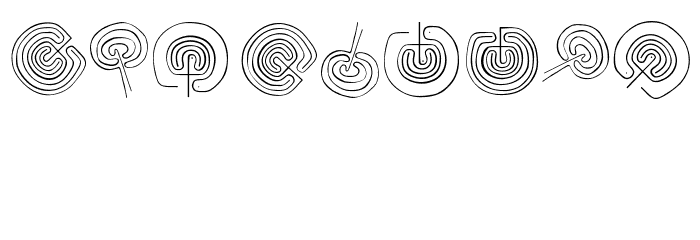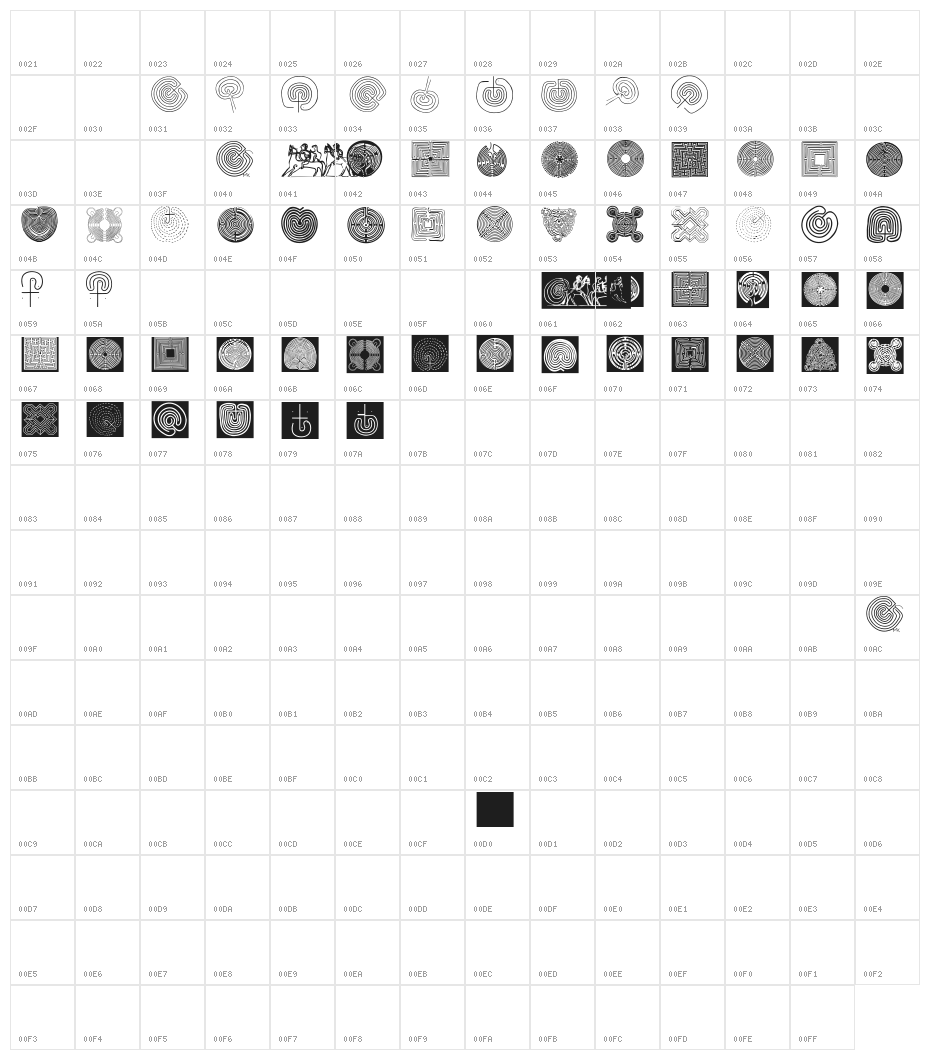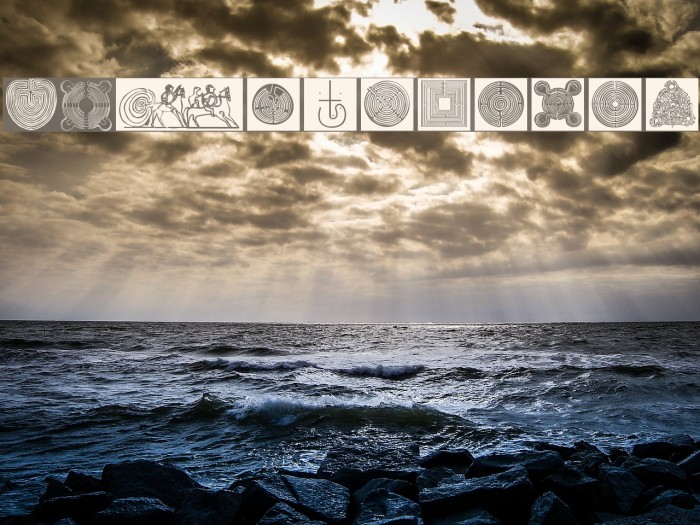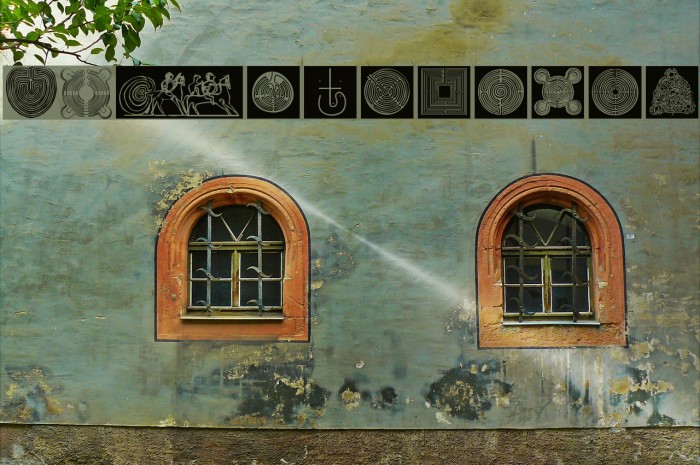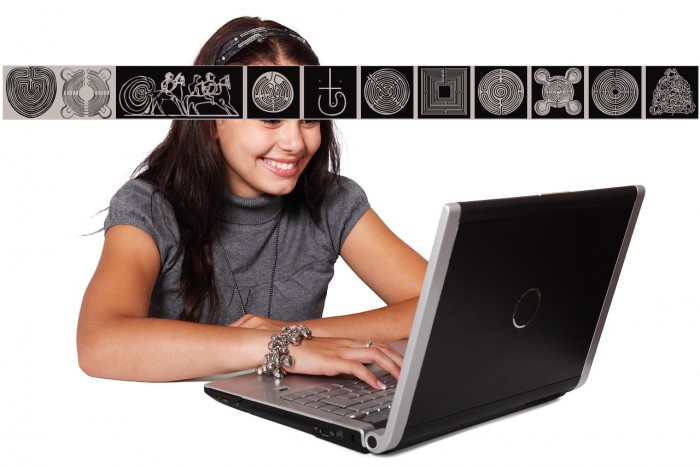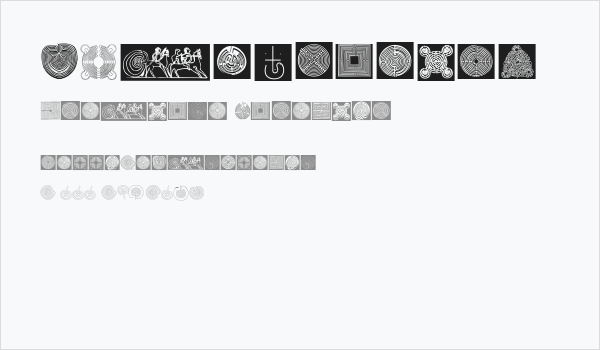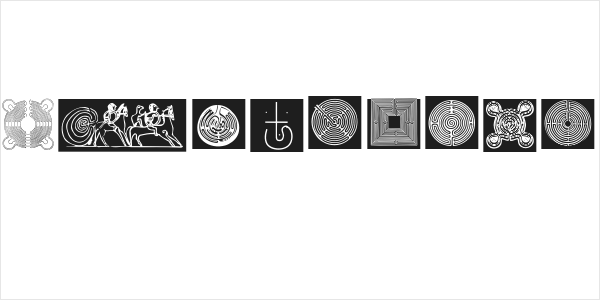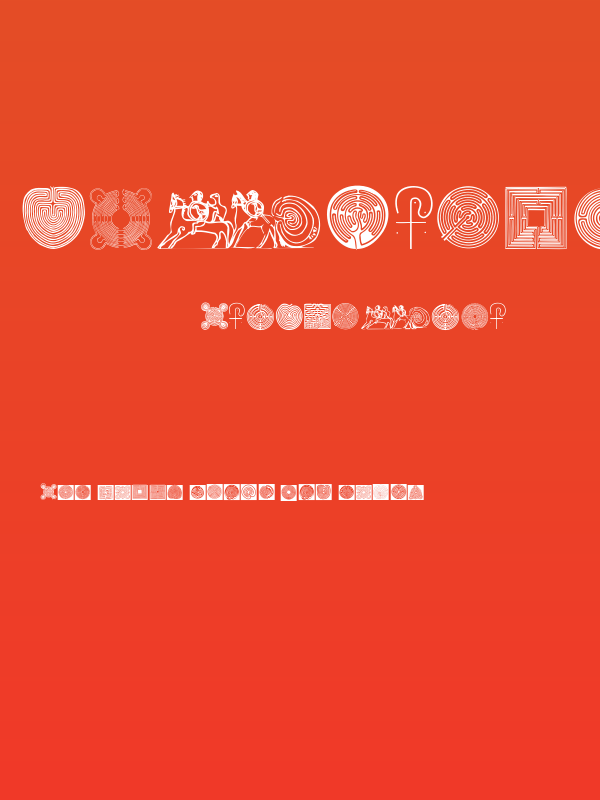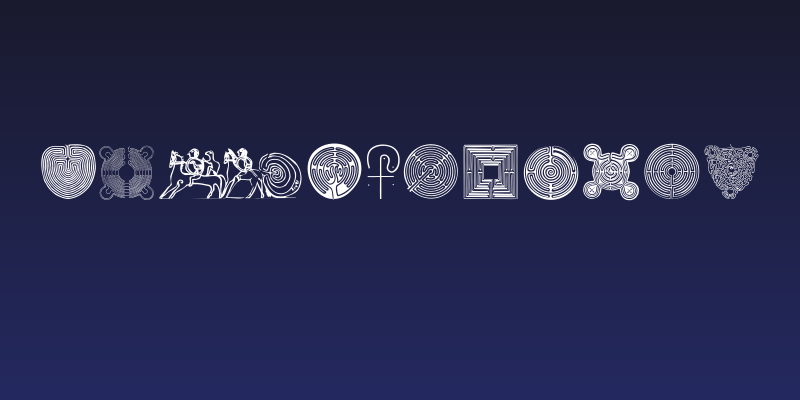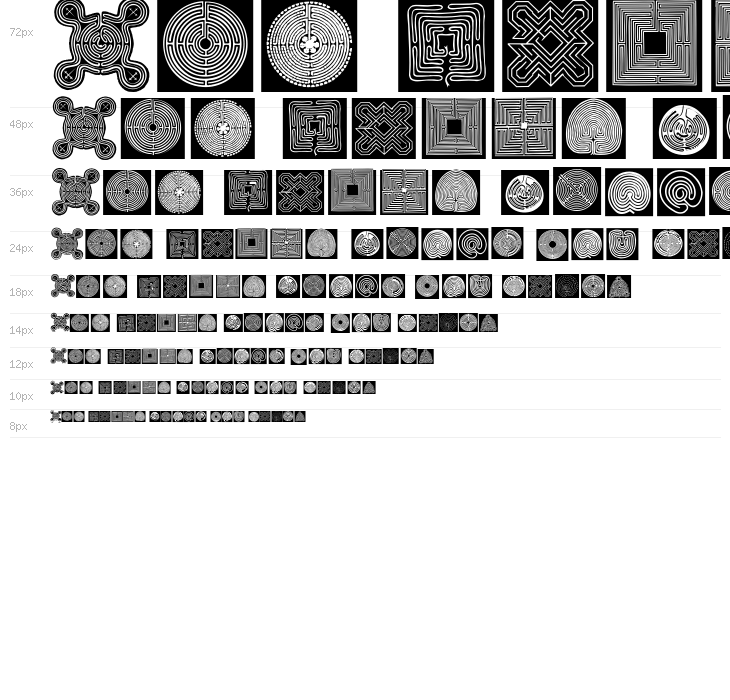
KLabyrinths Font
KLabyrinths Description
A highly decorative and illustrative font where each character is represented by a unique labyrinth or maze design, often circular or geometric, with intricate line work and varying complexity. The characters are visually distinct, with some incorporating figurative or symbolic elements, and the overall style is artistic and ornamental.
| Overall Style | Decorative, Artistic, Playful |
| Use Case | Logos, Posters, Headlines, Themed Graphics |
| Proposed Projects | Puzzle books, escape room branding, event posters, art installations, themed invitations, educational materials about mazes. |